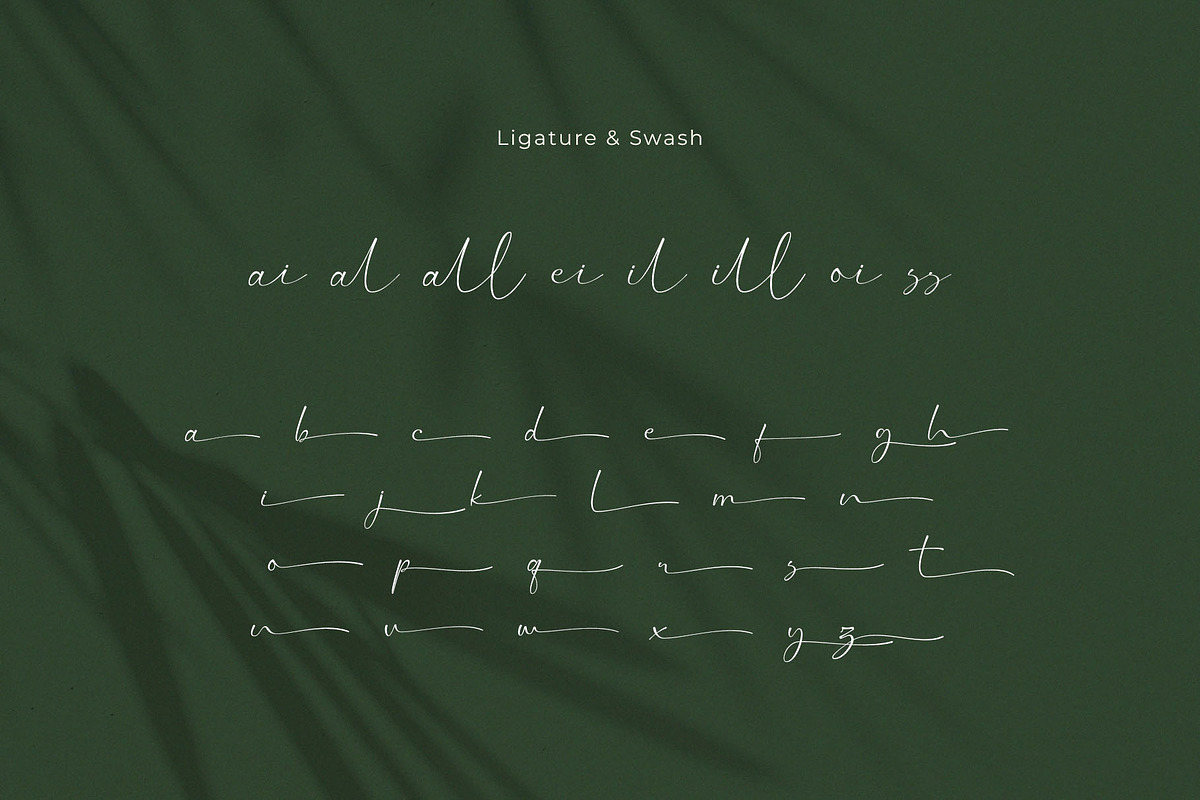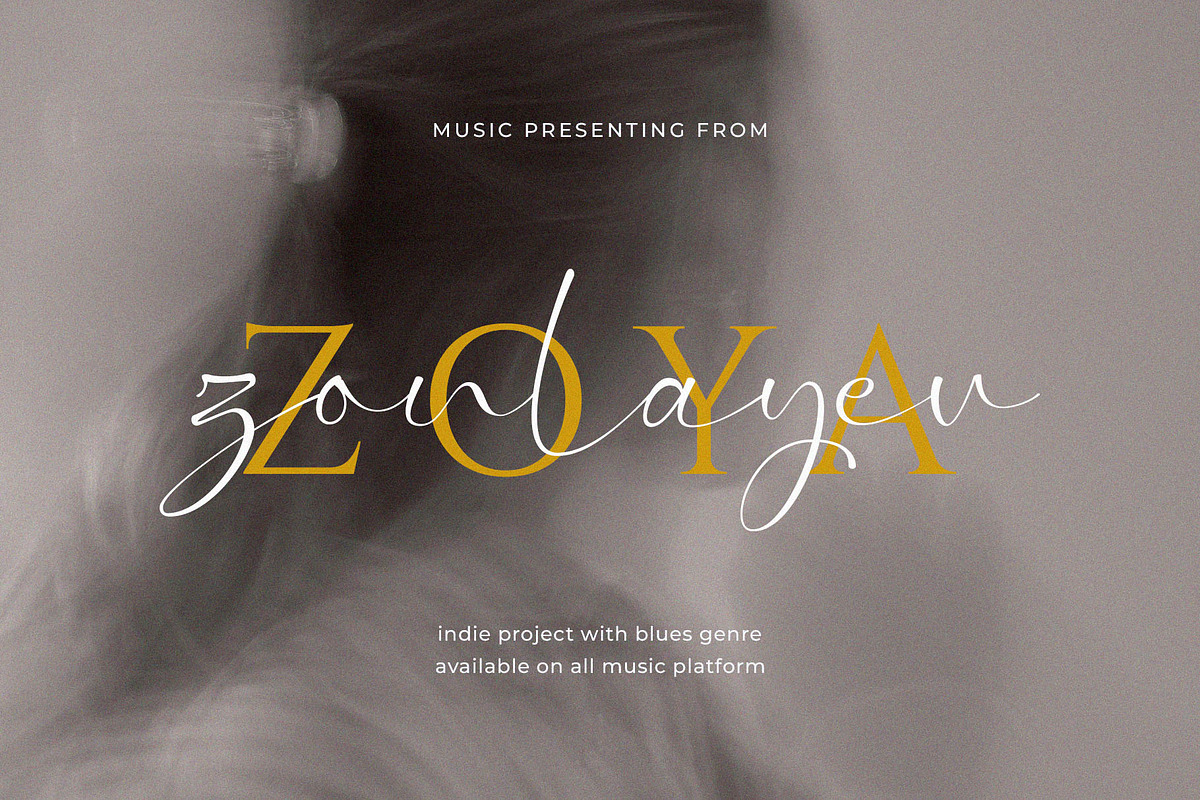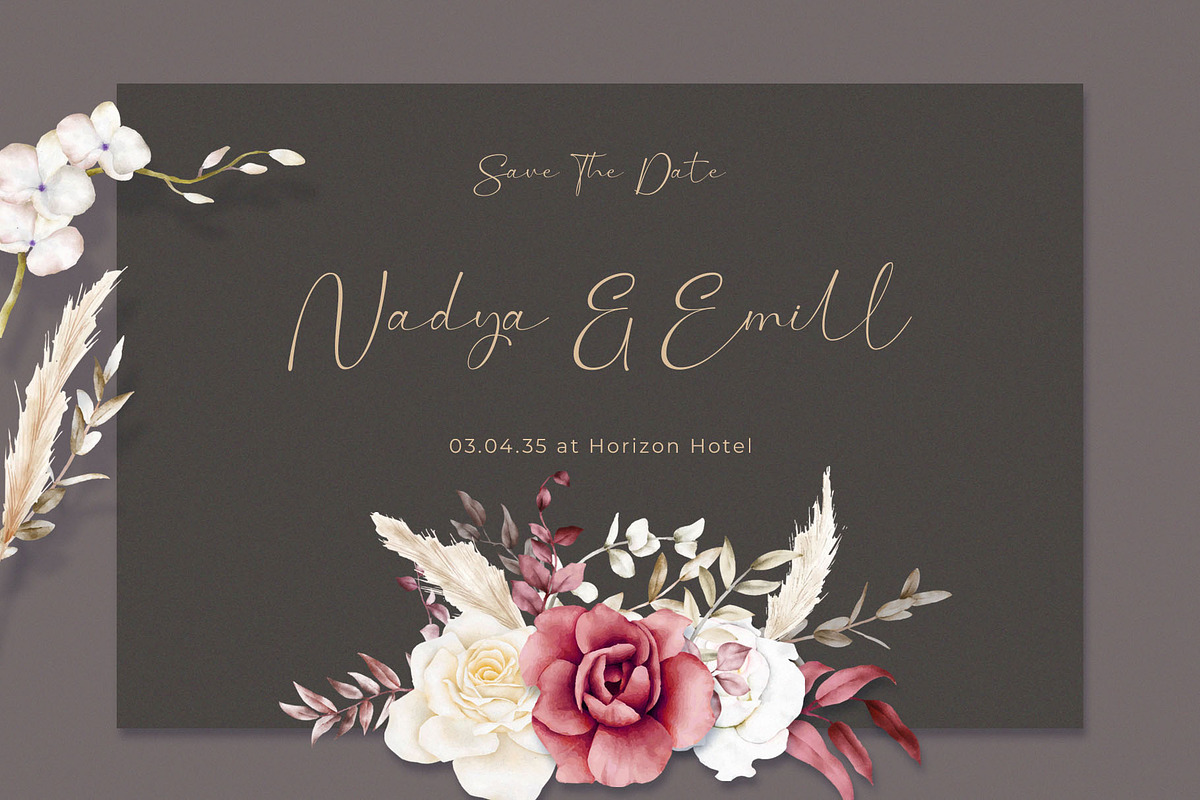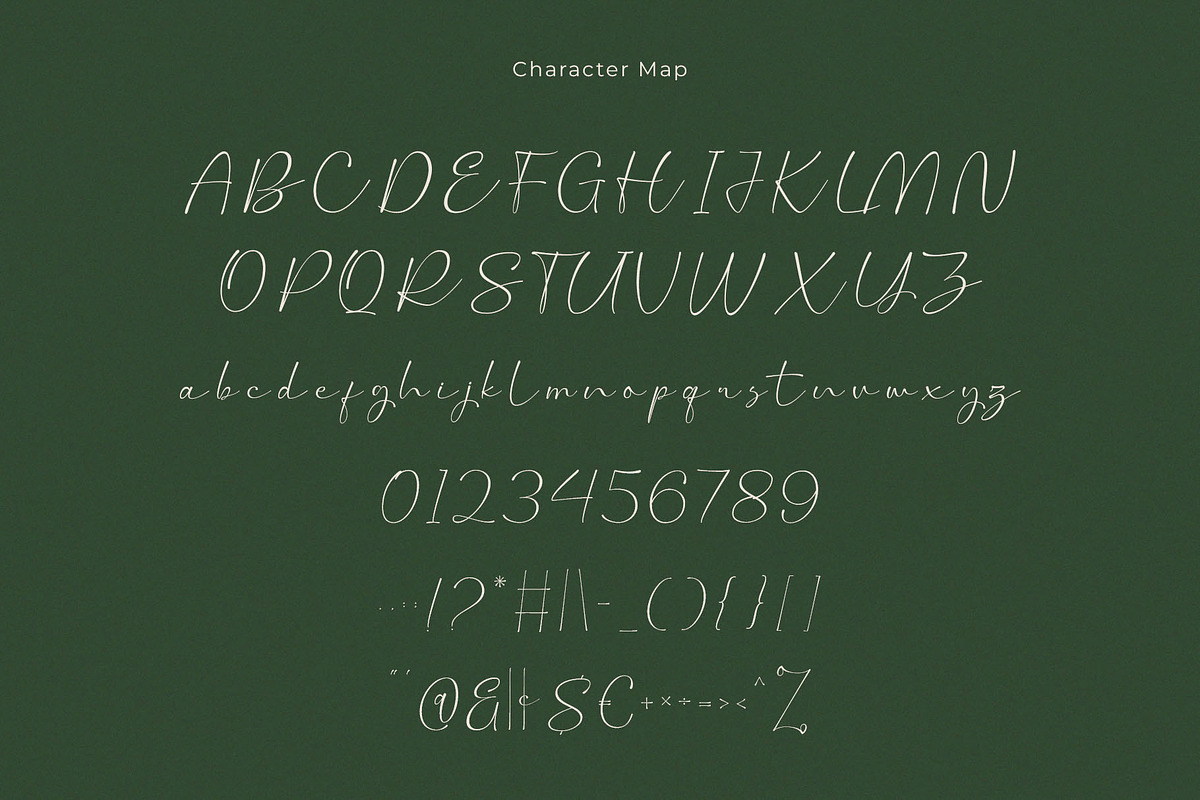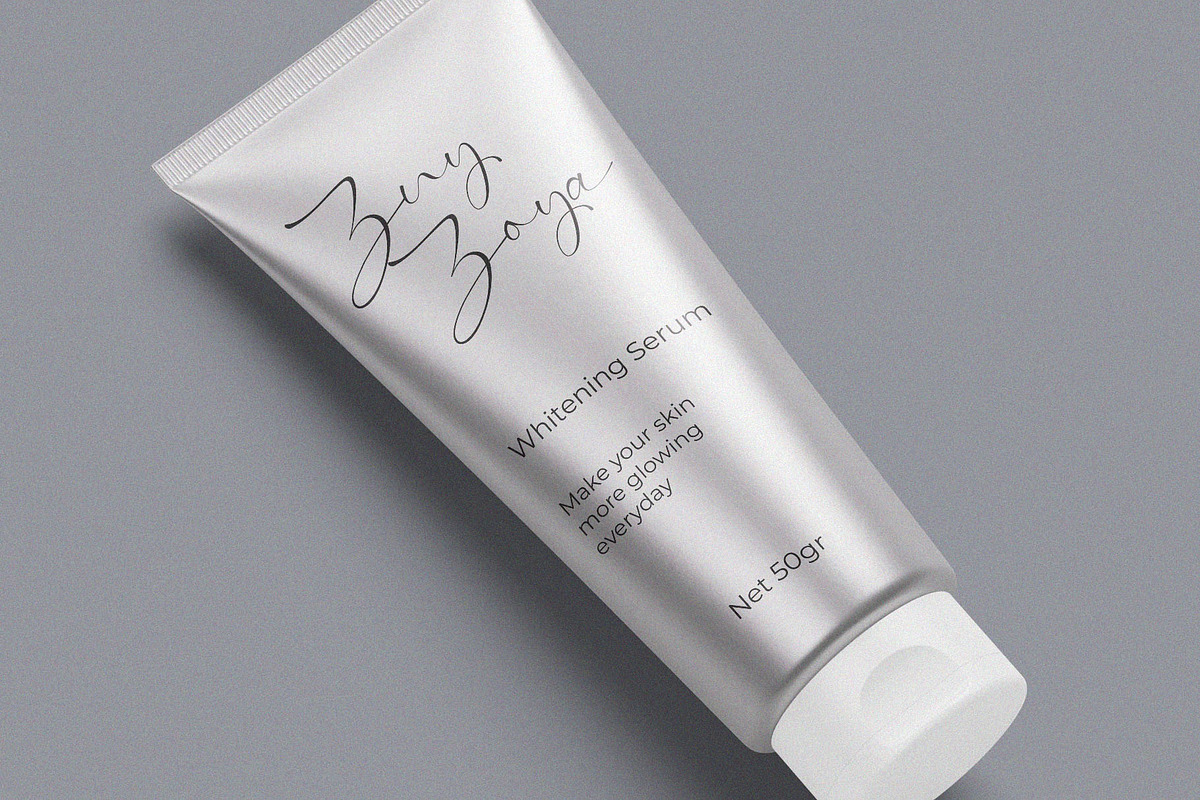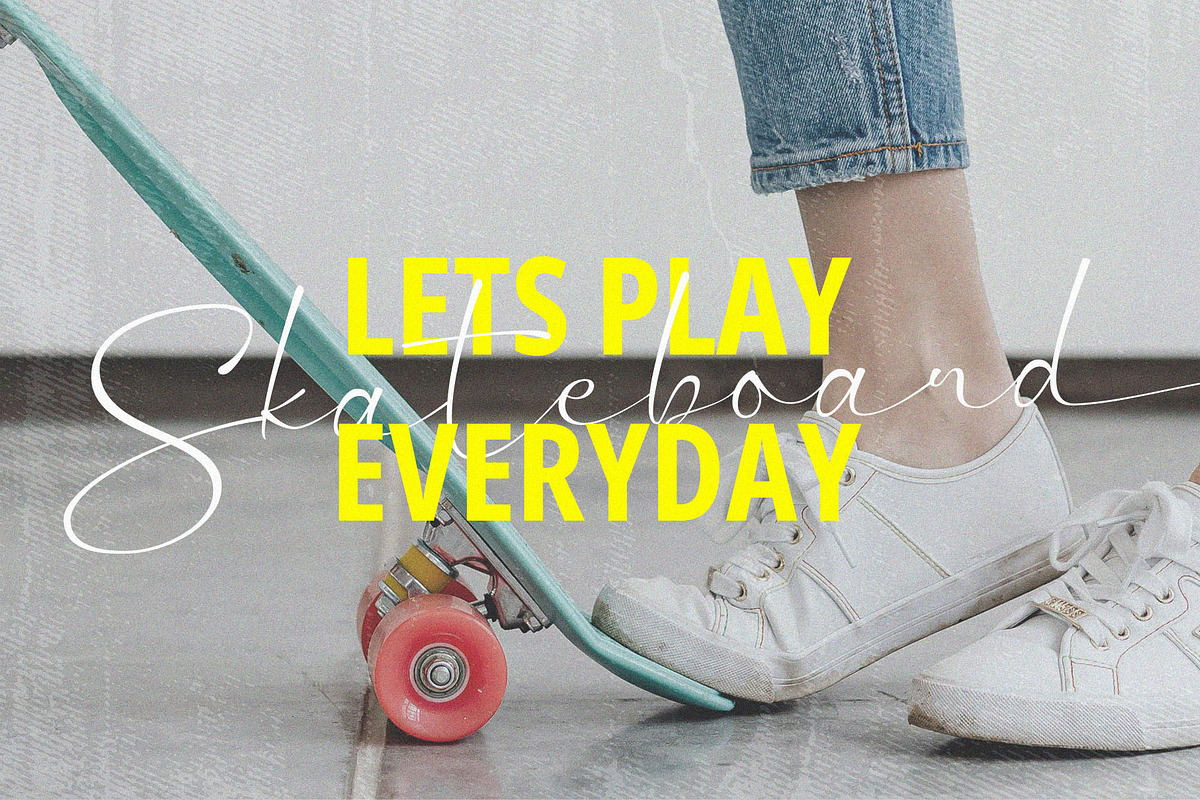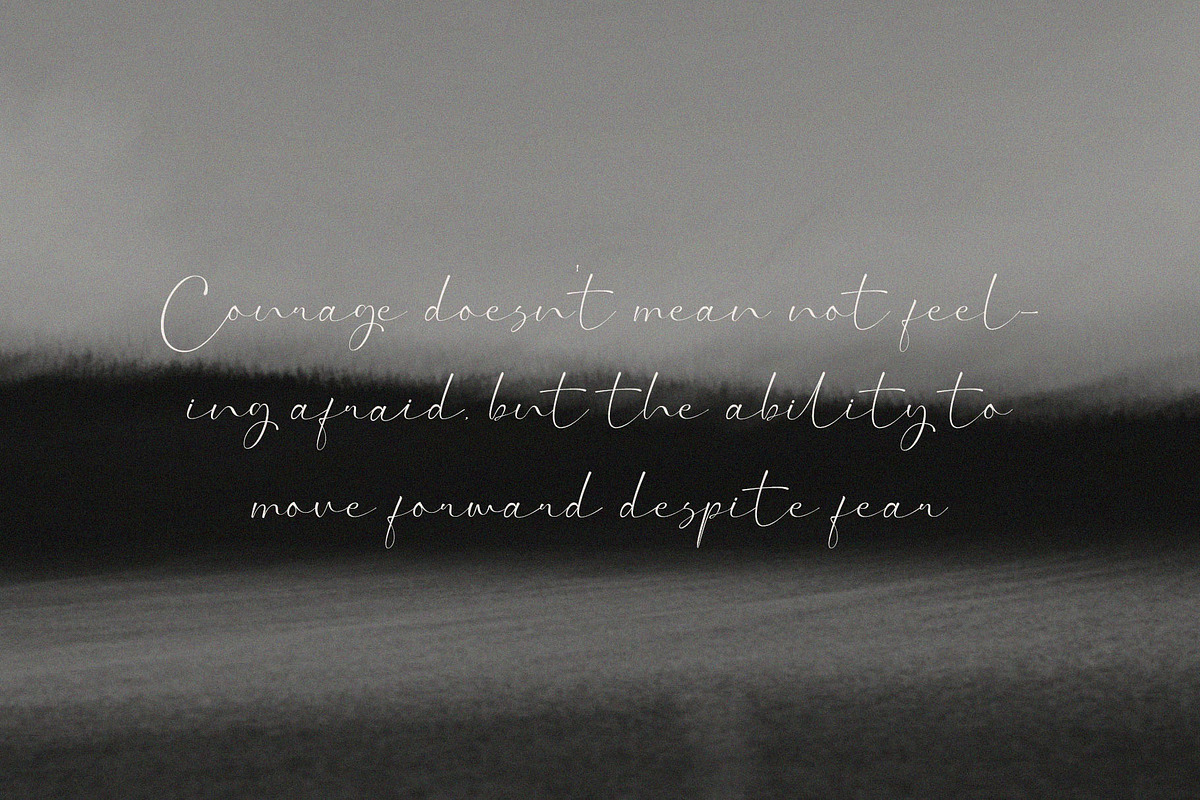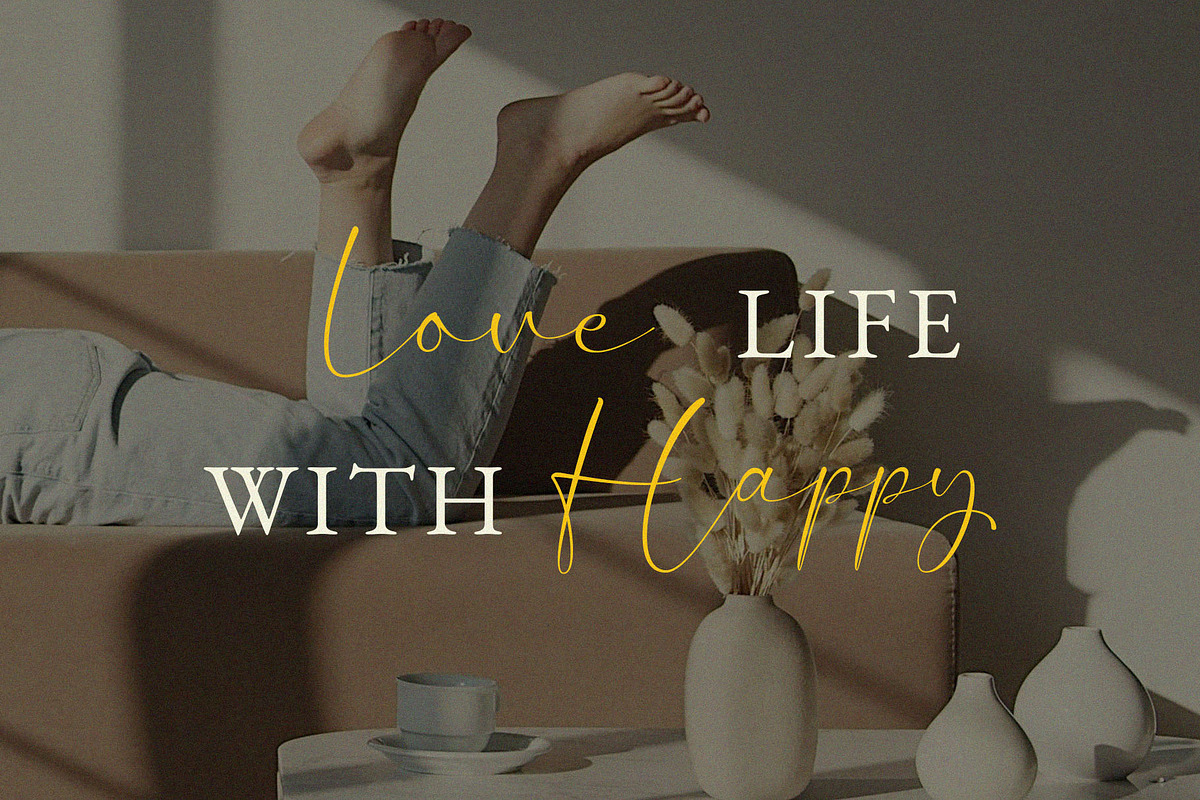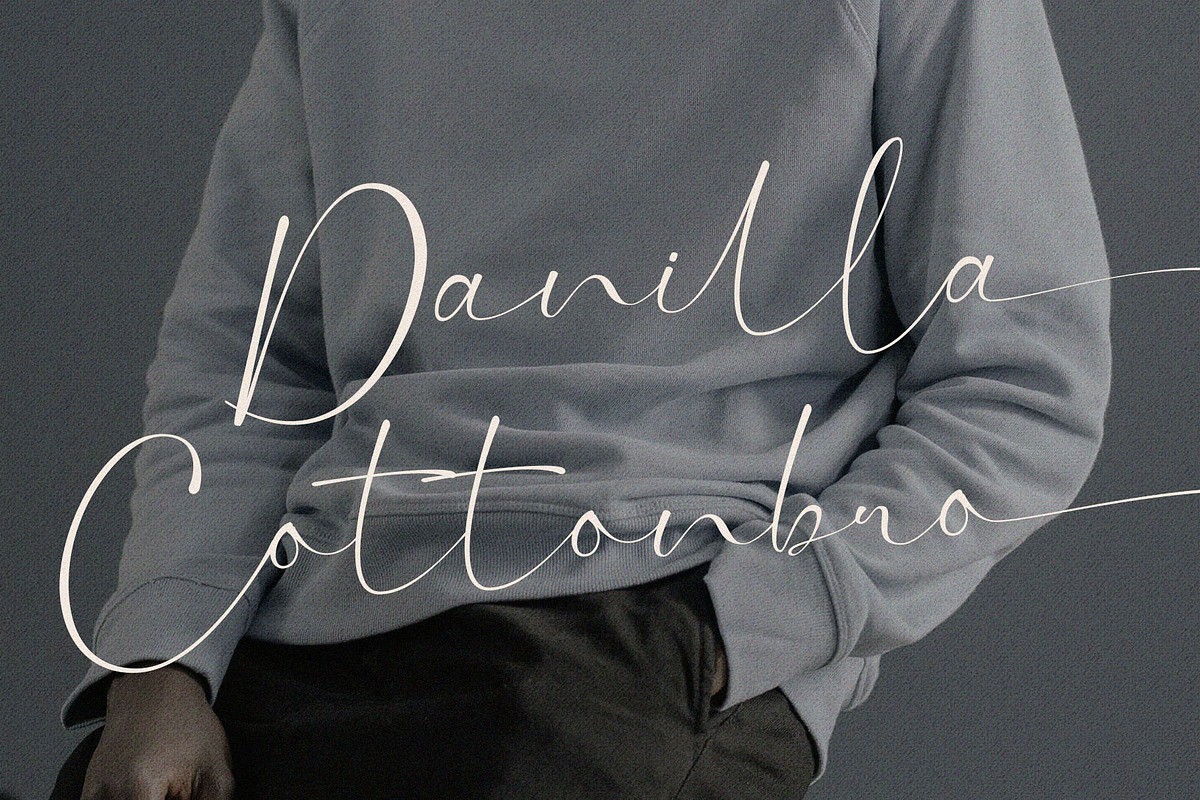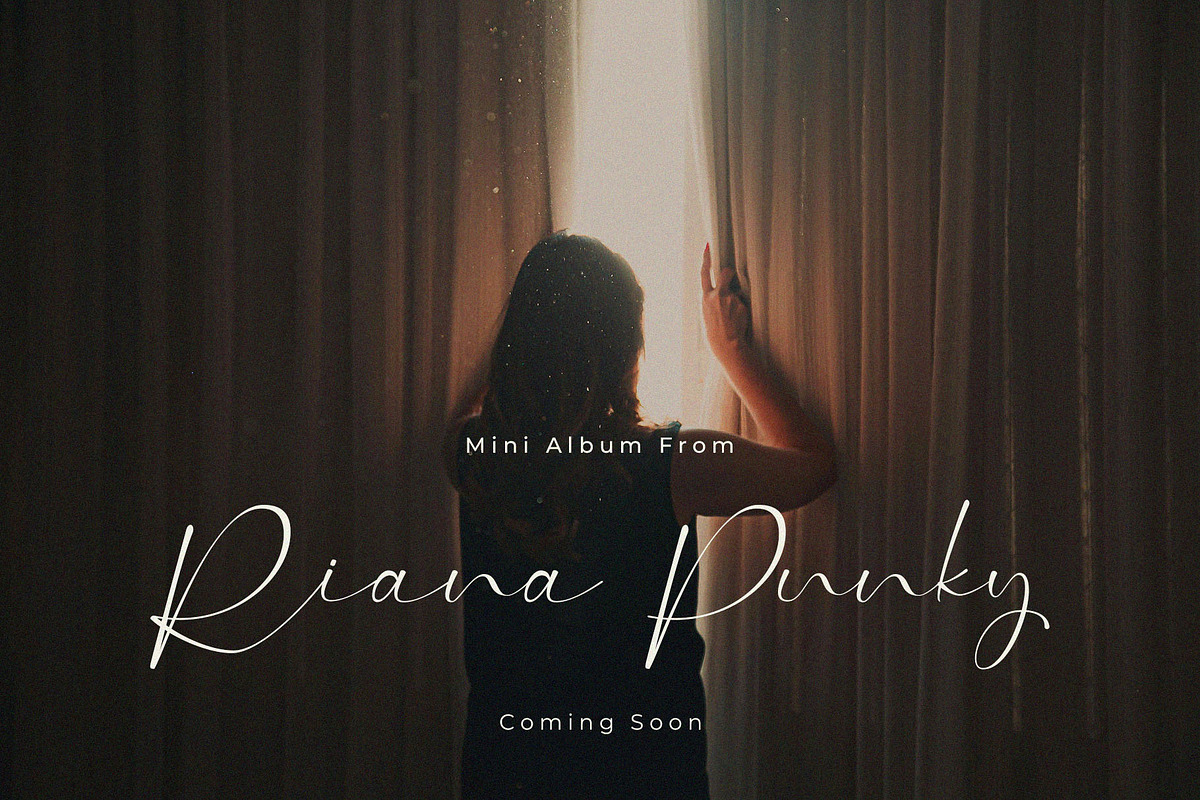
Romantic Session – Elegant Signature
Introducing the new Romantic Session Signature Font is a elegant and stylish handwritten script, that you can use to perfect your design. You will get full set of lowercase and uppercase letters, multilingual, numerals and punctuation.